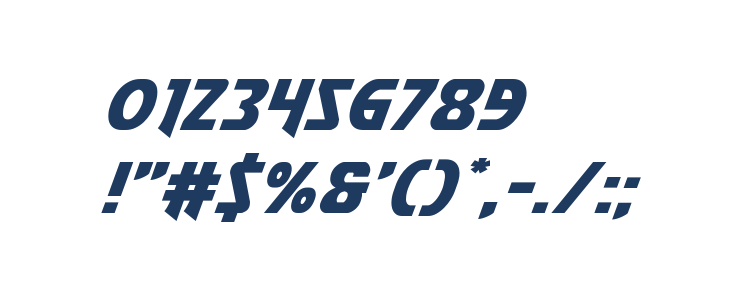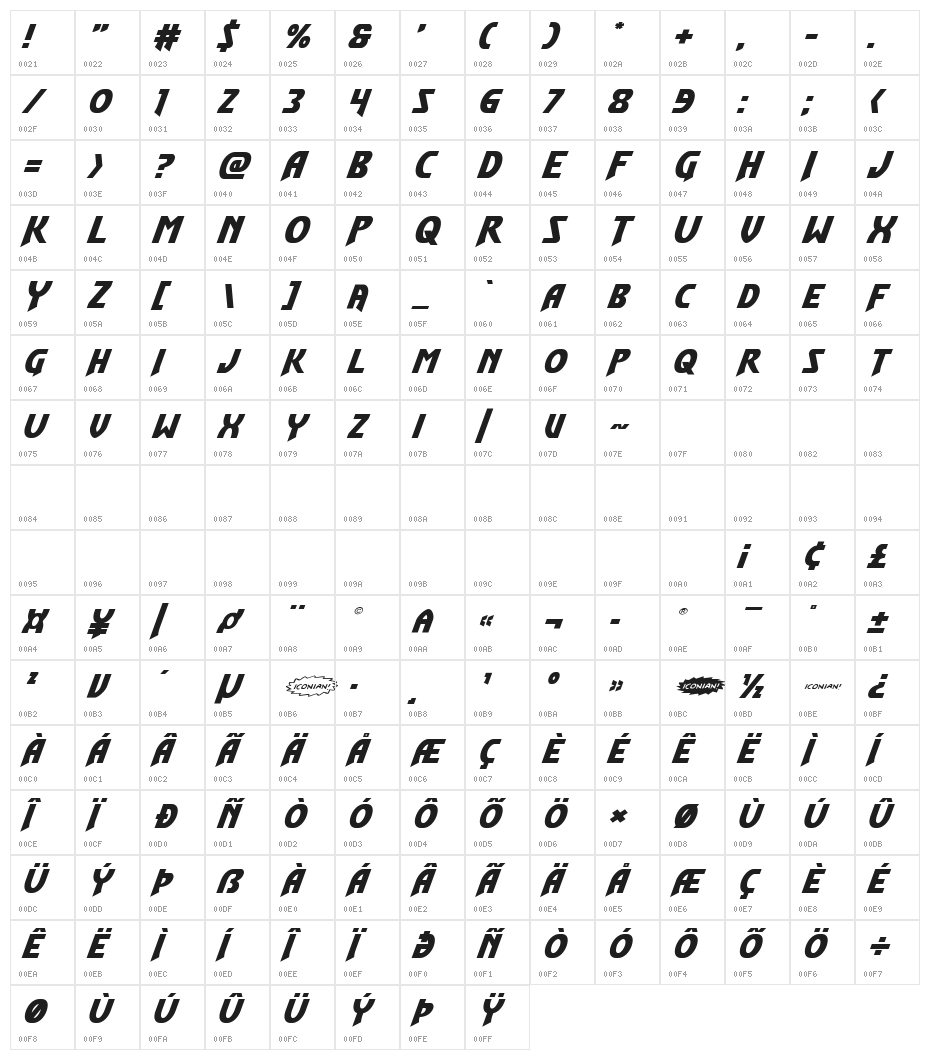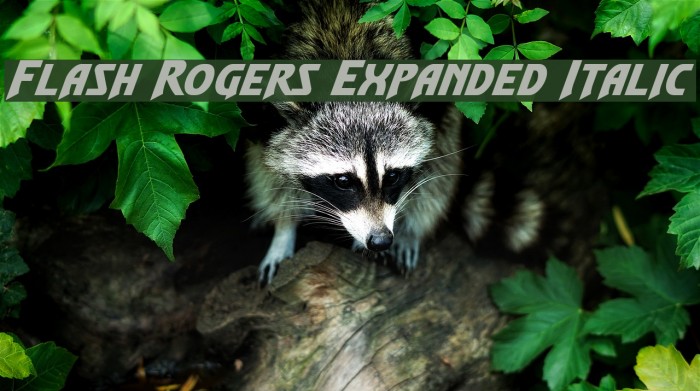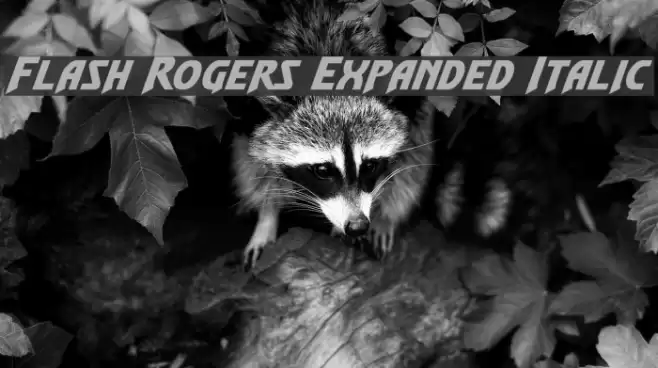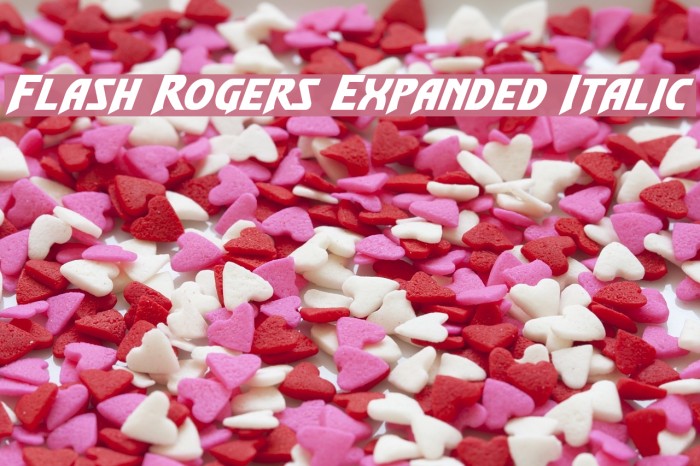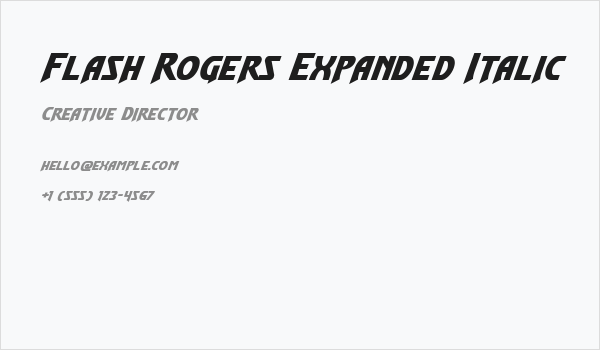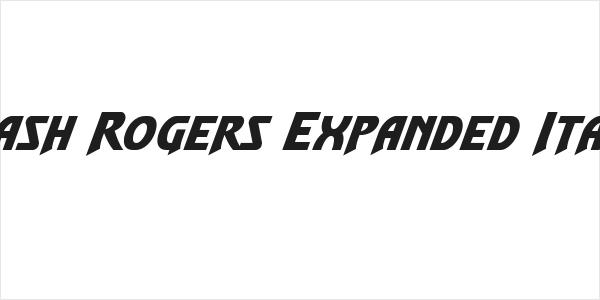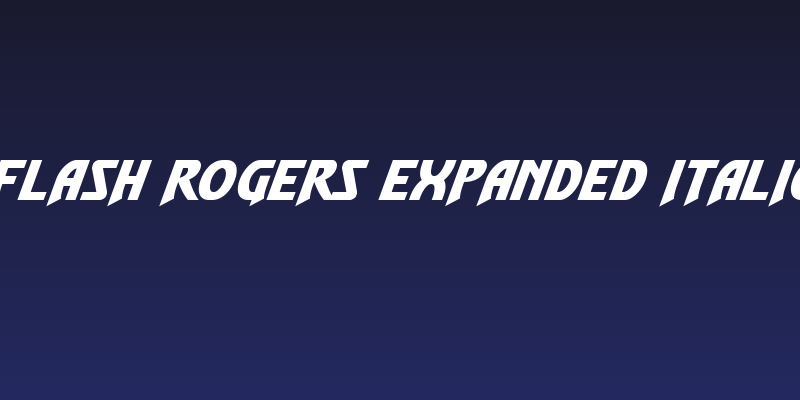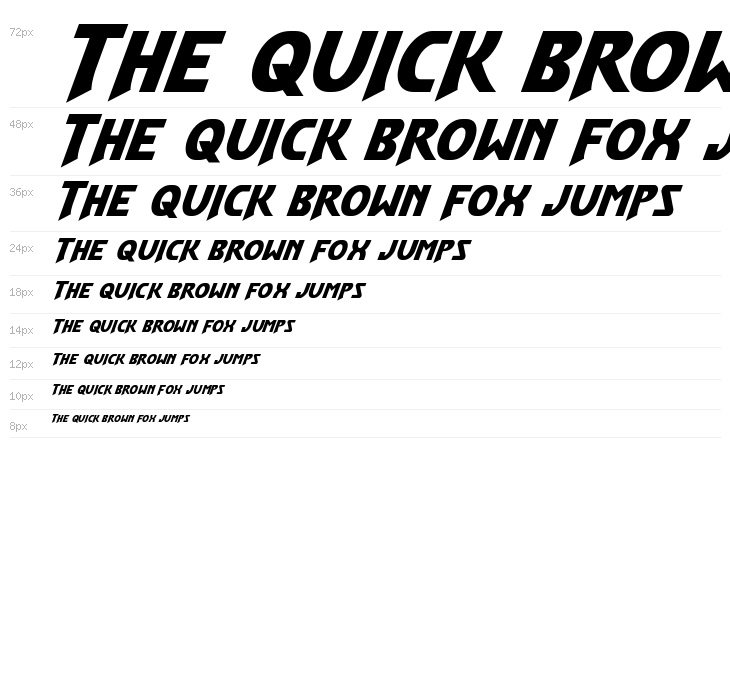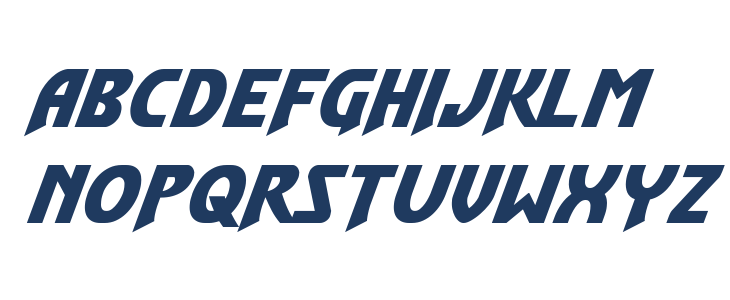
Flash Rogers Expanded Italic Font
Flash Rogers Expanded Italic Description
This font features a bold and dynamic style with a distinct italic slant, giving it a sense of movement and energy. The characters are sharply angled with pointed edges, creating a futuristic and aggressive appearance. The expanded width of the letters enhances its boldness, making it stand out prominently. The uppercase and lowercase letters maintain a consistent style, with the numerals and special characters following suit. This font is ideal for projects that require a strong and impactful visual presence.
| Proposed Projects | Ideal for sports branding, action movie posters, video game titles, and dynamic logo designs. |